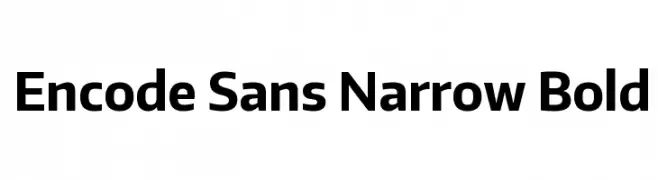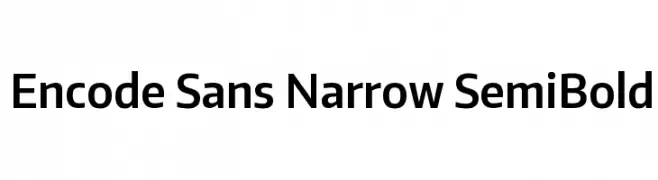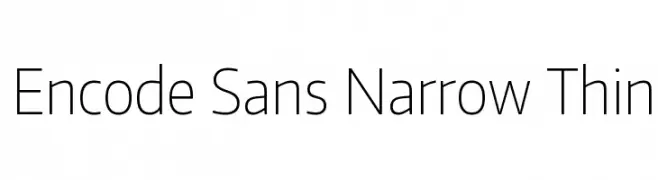
A modern, narrow, and thin sans-serif font with a minimalist design.
A modern, narrow, and bold sans-serif typeface with tight spacing.
A modern, narrow sans-serif font with semi-bold weight.
A modern, bold, compressed sans-serif font with a clean and professional look.
A modern, compressed sans-serif font with a clean and uniform appearance.
A modern, compressed sans-serif font with medium weight and tight spacing.
A modern, compressed sans-serif font with semi-bold weight and geometric design.